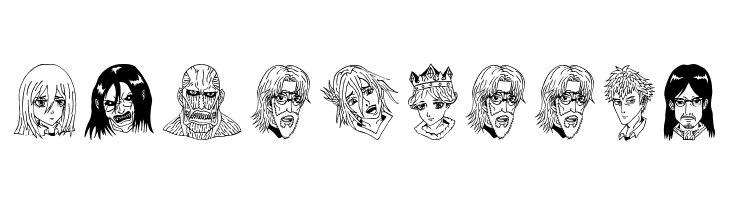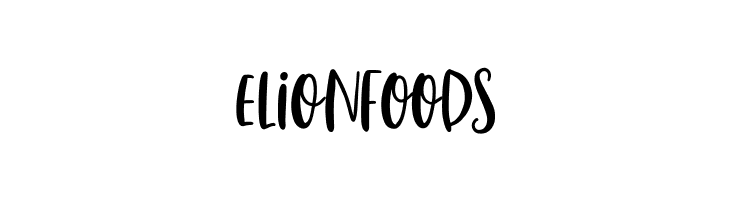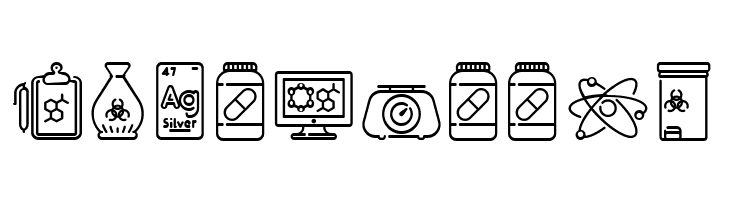
Bold, decorative font using anime character faces as glyphs.
A bold, playful handwritten font with smooth, flowing strokes.
A whimsical dingbat font of diverse cartoon faces.
Outlined chemistry icons with a clean, minimalistic style.